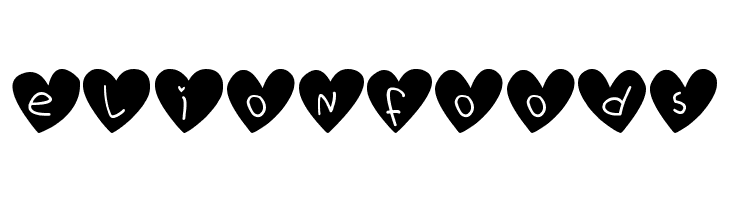
• Love Ya Like A Sister Solid
A playful, hand-drawn font with bold, irregular strokes and a casual vibe.
• Love Yellow
A playful, whimsical script font with flowing, interconnected letters.
• Love You Angel
• Love You Heaps
A playful, informal handwritten font with dynamic strokes and a whimsical appearance.
• Love you mom
A decorative font with anchor-like serifs and a nautical theme.
• Love you mom Bold
A decorative font with stitching-like embellishments, offering a handcrafted and artistic feel.
• Love you mom Shadow
A bold, decorative font with a vintage shadow effect, ideal for impactful designs.
• Love You tfb
A whimsical font with letters encased in heart shapes, perfect for romantic or playful designs.
• Love you too tfb
A playful, heart-themed decorative font with bold outlines.
• LOVE_AMY
A playful dingbat font with diverse heart and love-themed icons.
• Love_Memories
A cursive, handwritten font with smooth, connected strokes and elegant style.
• love-artdesign
A playful heart and arrow design, ideal for romantic themes.
• LOVE-BOX
• LOVE-YOU
A bold, playful font with a 3D shadow effect and blocky, enclosed letters.
• LOVE-YOU
A bold, playful font with characters on tilted blocks, creating a dynamic 3D effect.
• Love'sLabour